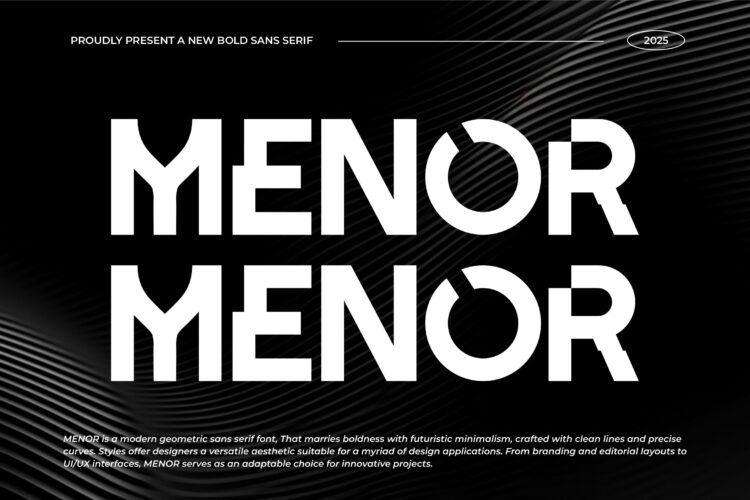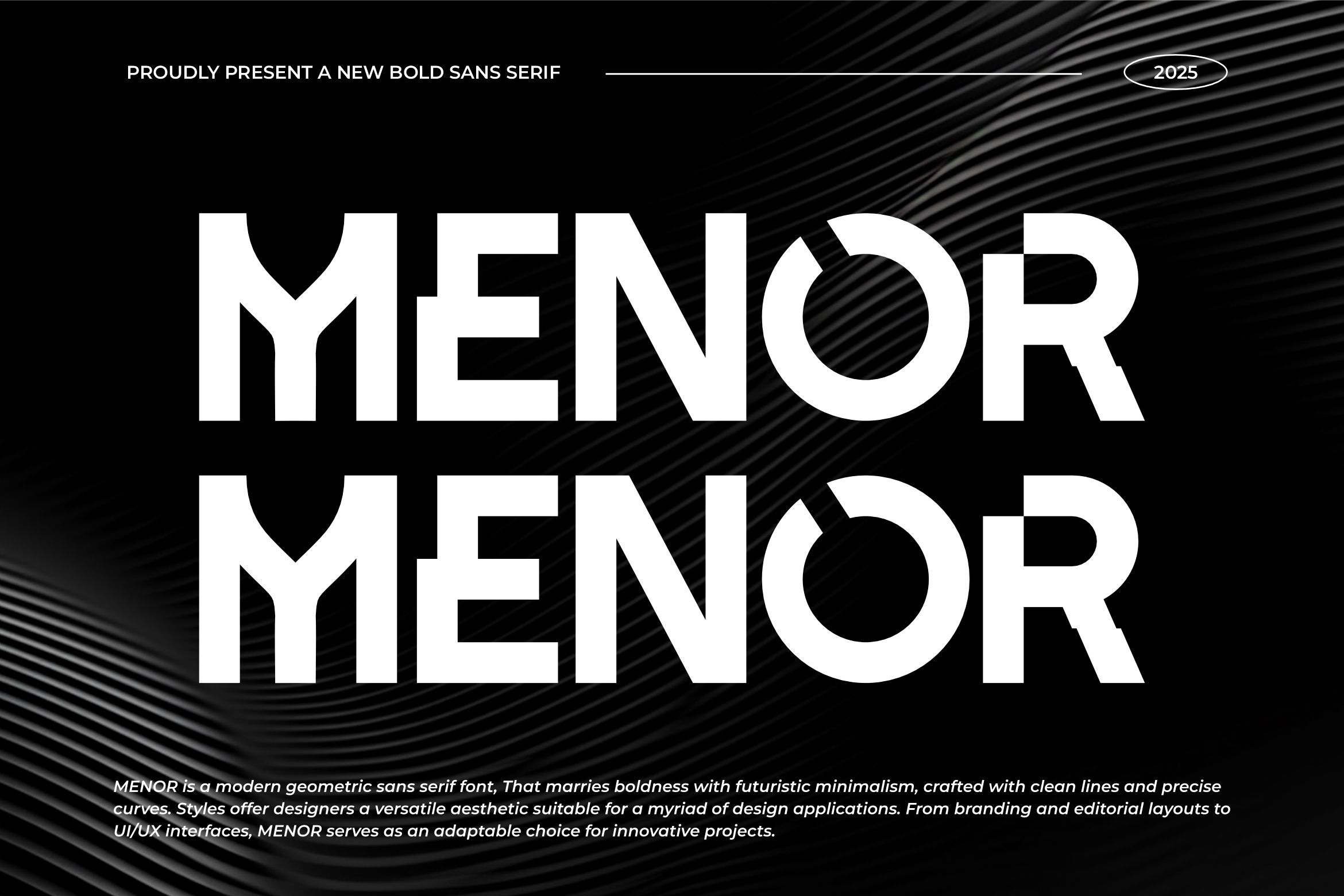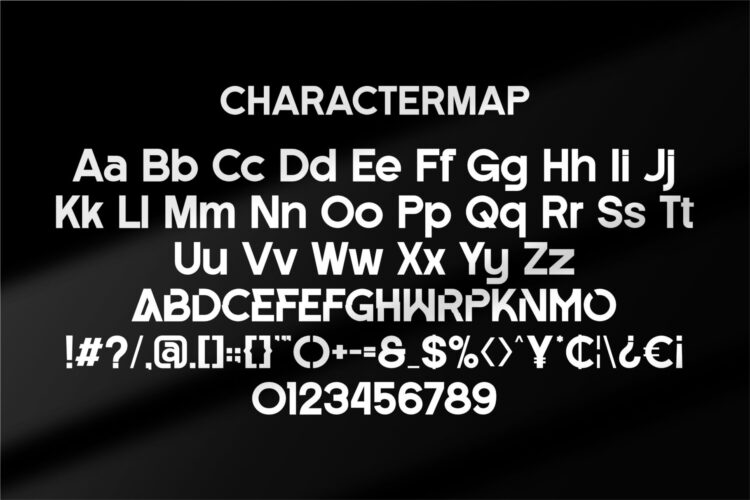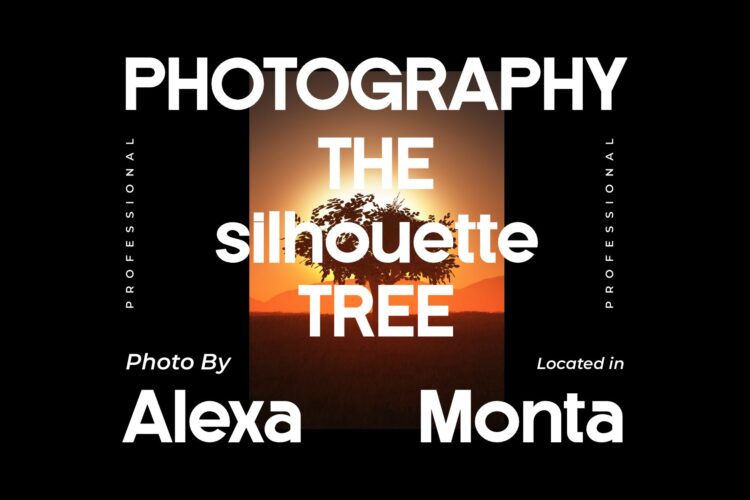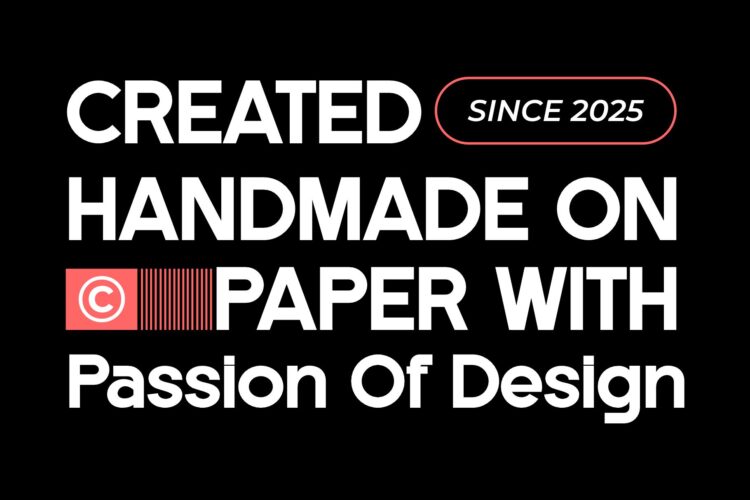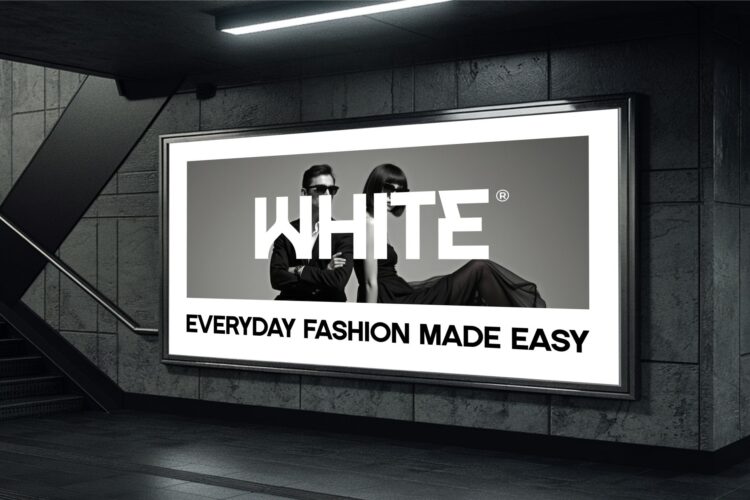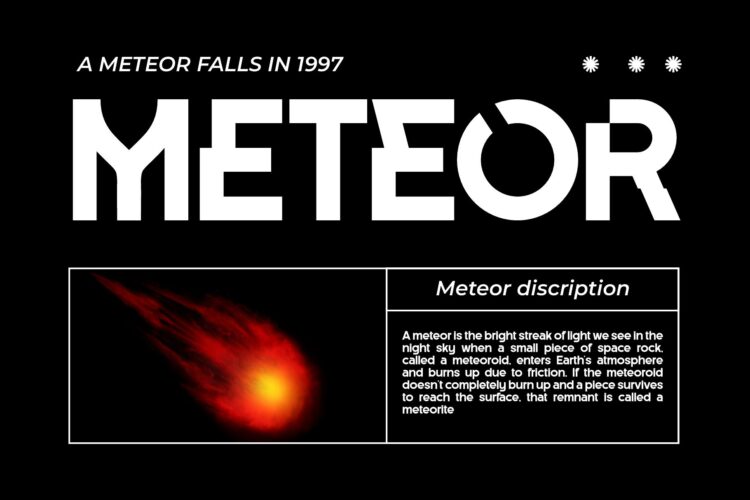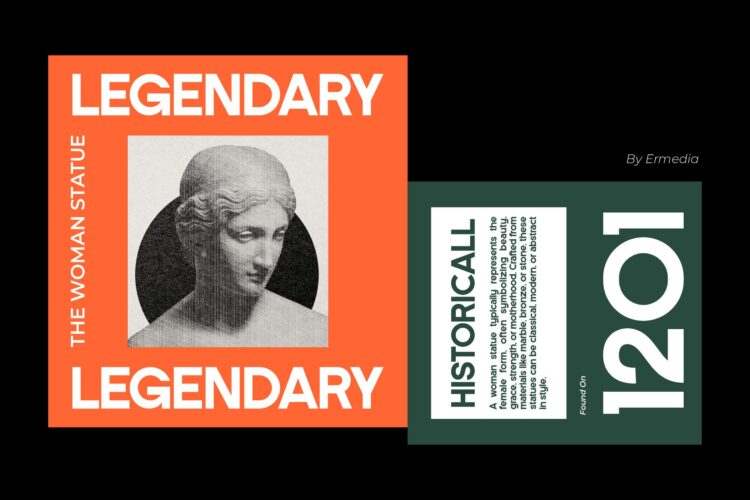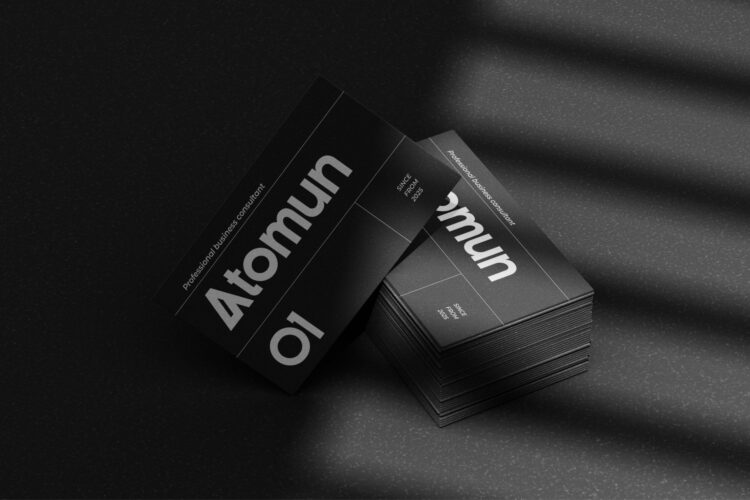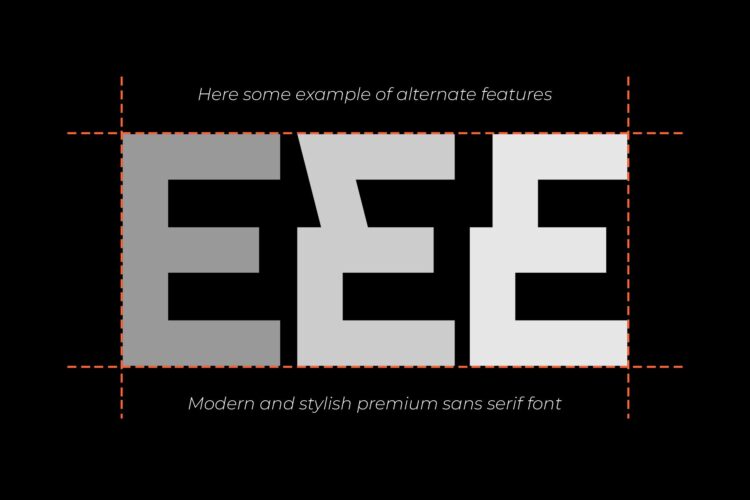
Menor
Introducing Menor bold is a striking display typeface that embodies bold minimalism, a key trend in contemporary design. With its strong presence, this font seamlessly blends confidence with modern playfulness. Whether used in stark compositions or clean layouts, Menor Bold delivers maximum impact while maintaining the core principles of minimal design aesthetics. Its balanced weight distribution and carefully crafted characters make it ideal for typography-driven designs, where simplicity and boldness work in harmony
Menor || Modern Bold Sans Serif Font